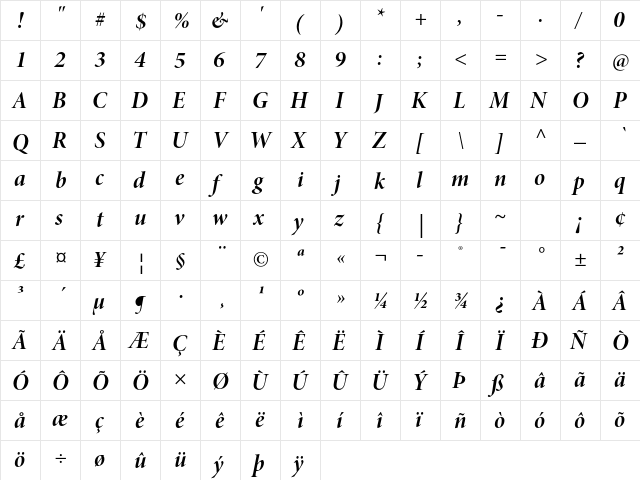
Minion Pro Bold Italic Display
| Designer | Robert Slimbach |
Design Context for Minion Pro Typeface
Minion Pro brings ornamental detail and strong personality to headlines and identities, where visual impact matters more than quiet functionality. The slanted form adds forward momentum and visual energy. The heavy weight commands attention and anchors typographic hierarchies.
Font Pairing: Pair with a clean neutral sans-serif for body copy to let Minion Pro's character lead without overwhelming the composition.
Pro Tip: Use Minion Pro exclusively at display sizes — it was designed to be seen, not read at length. Let a neutral companion handle body copy.